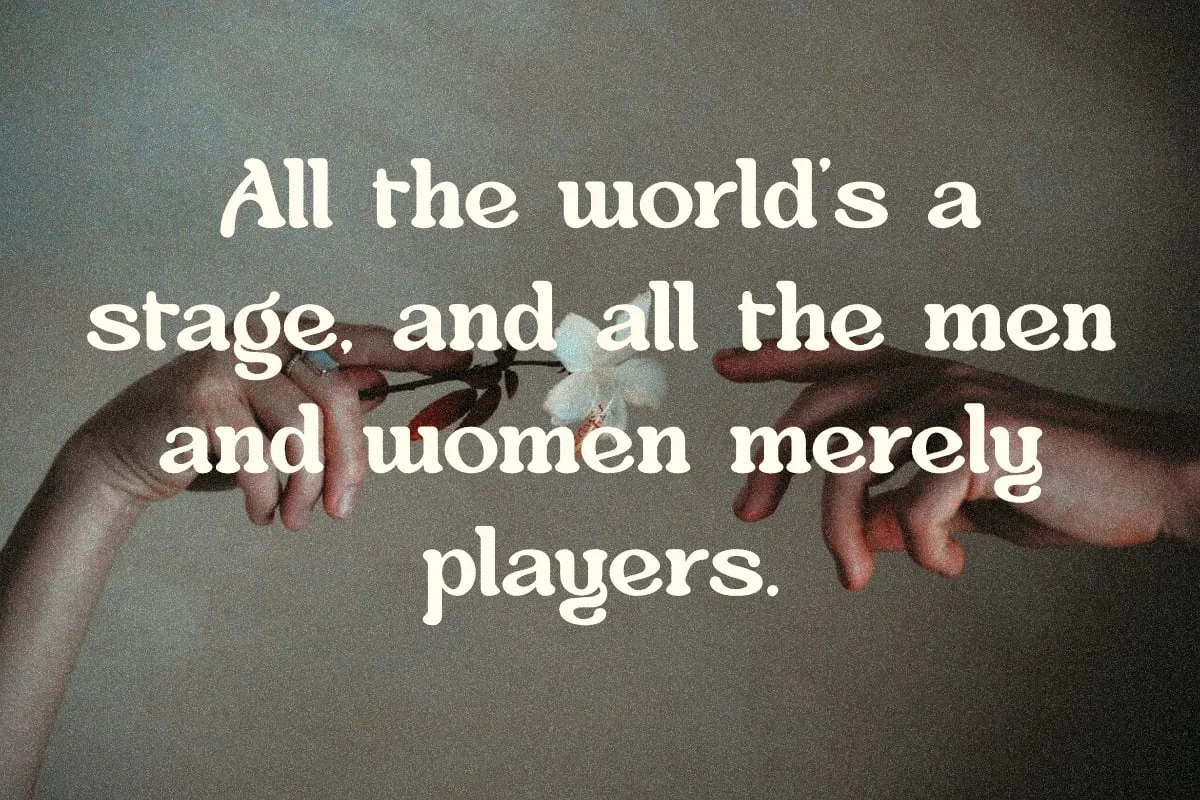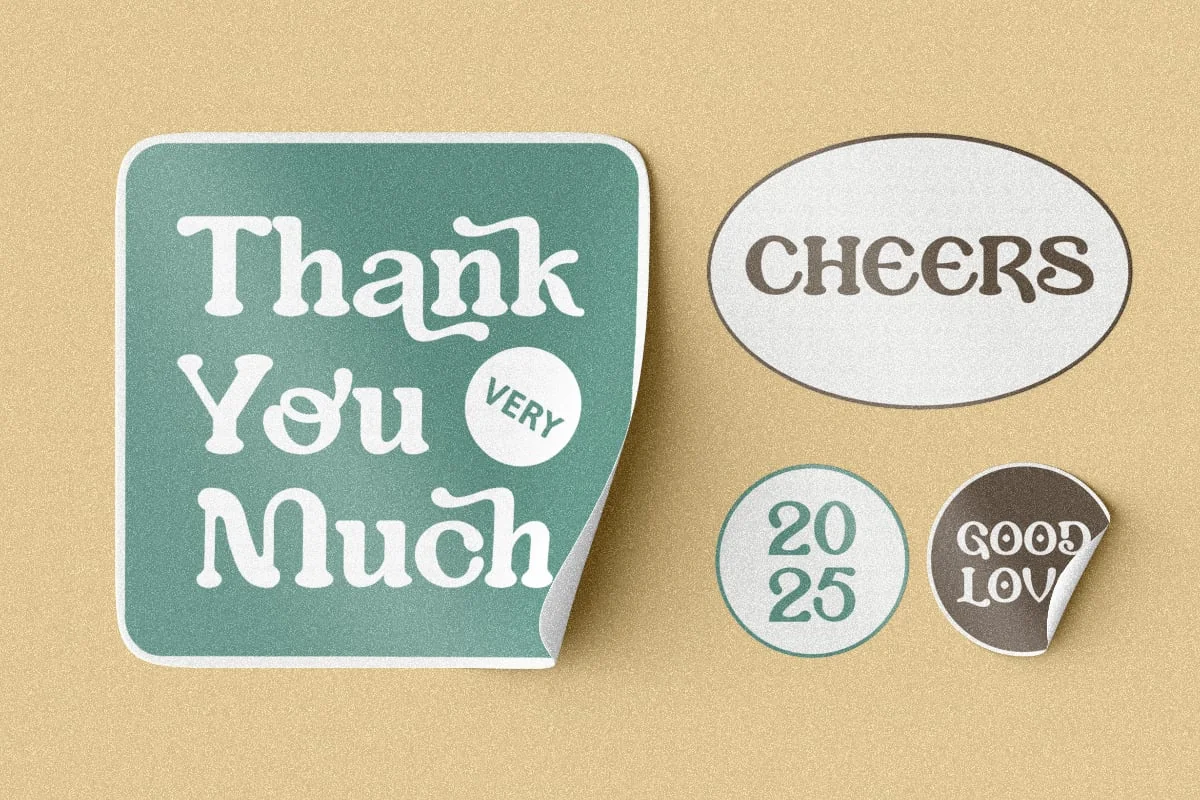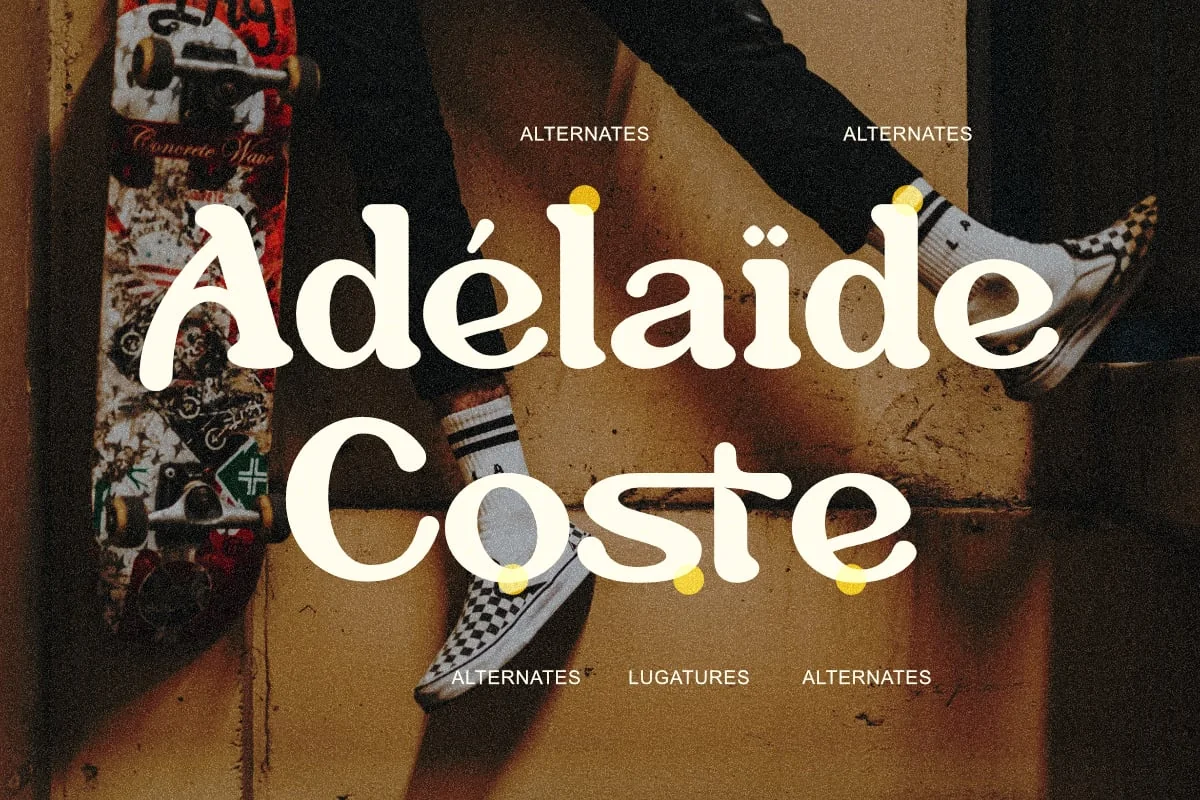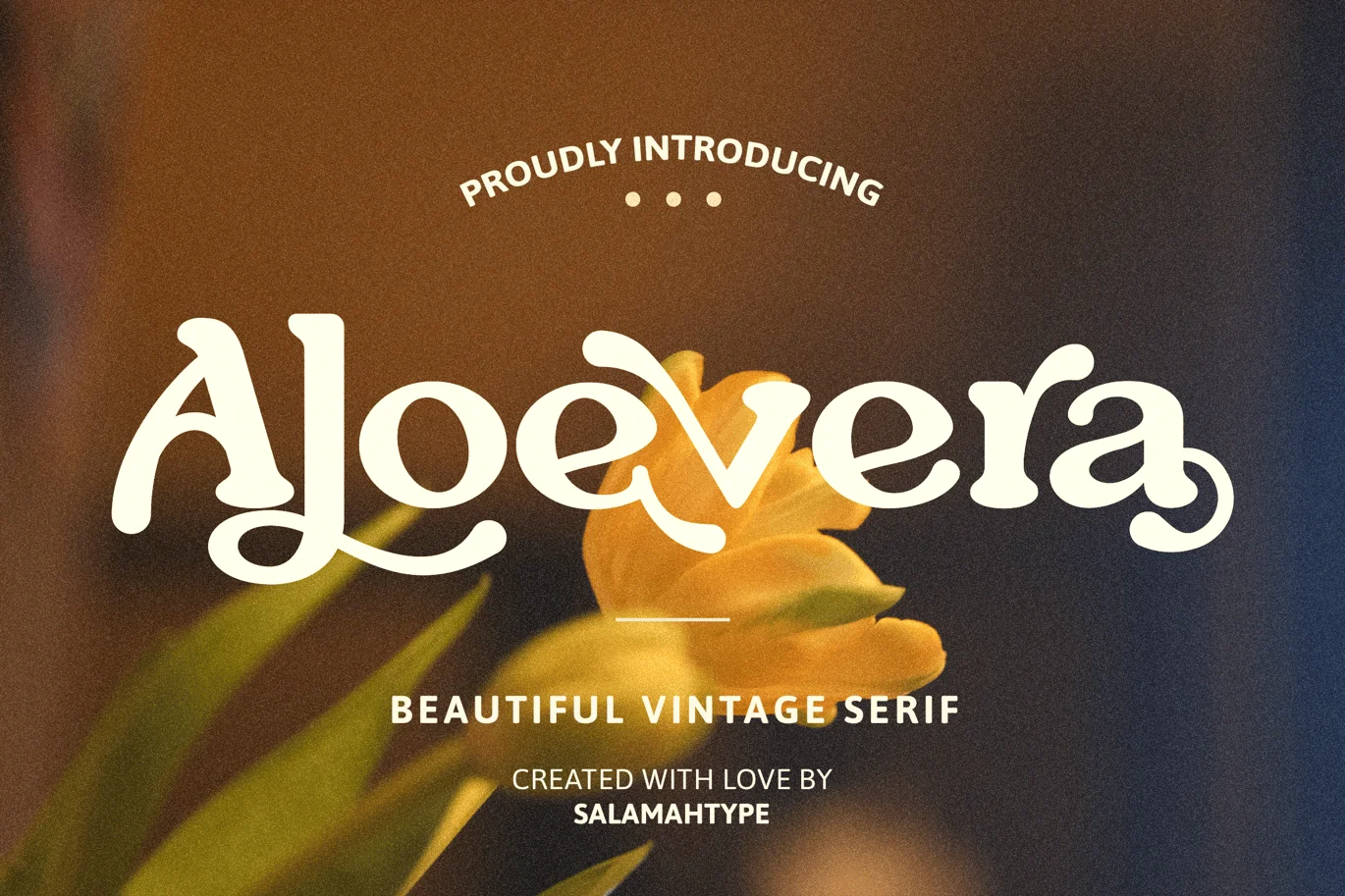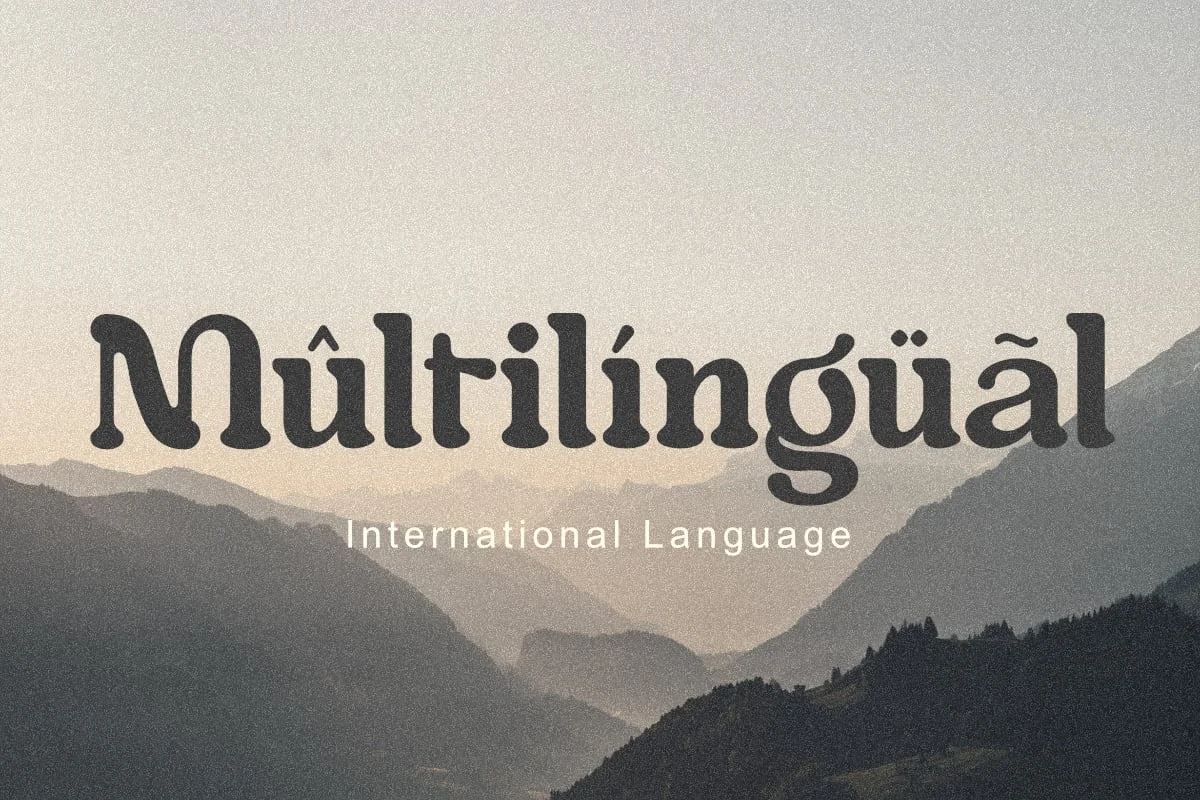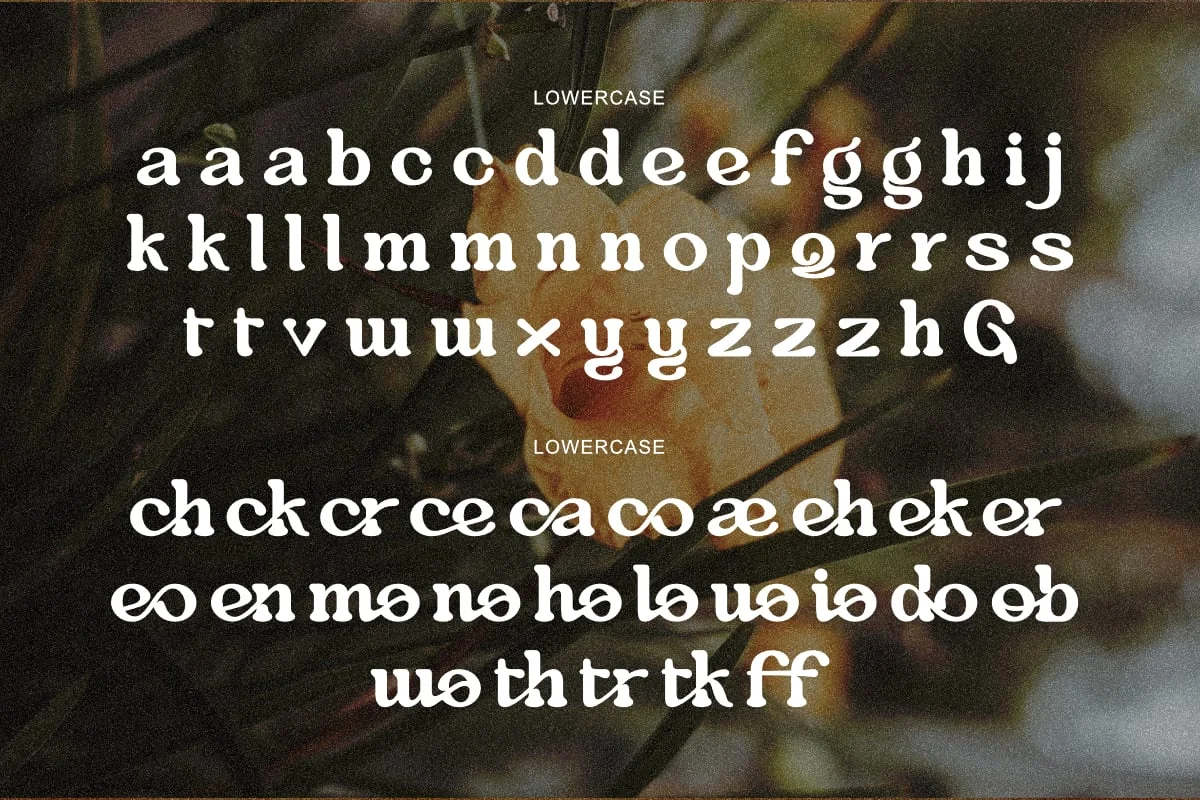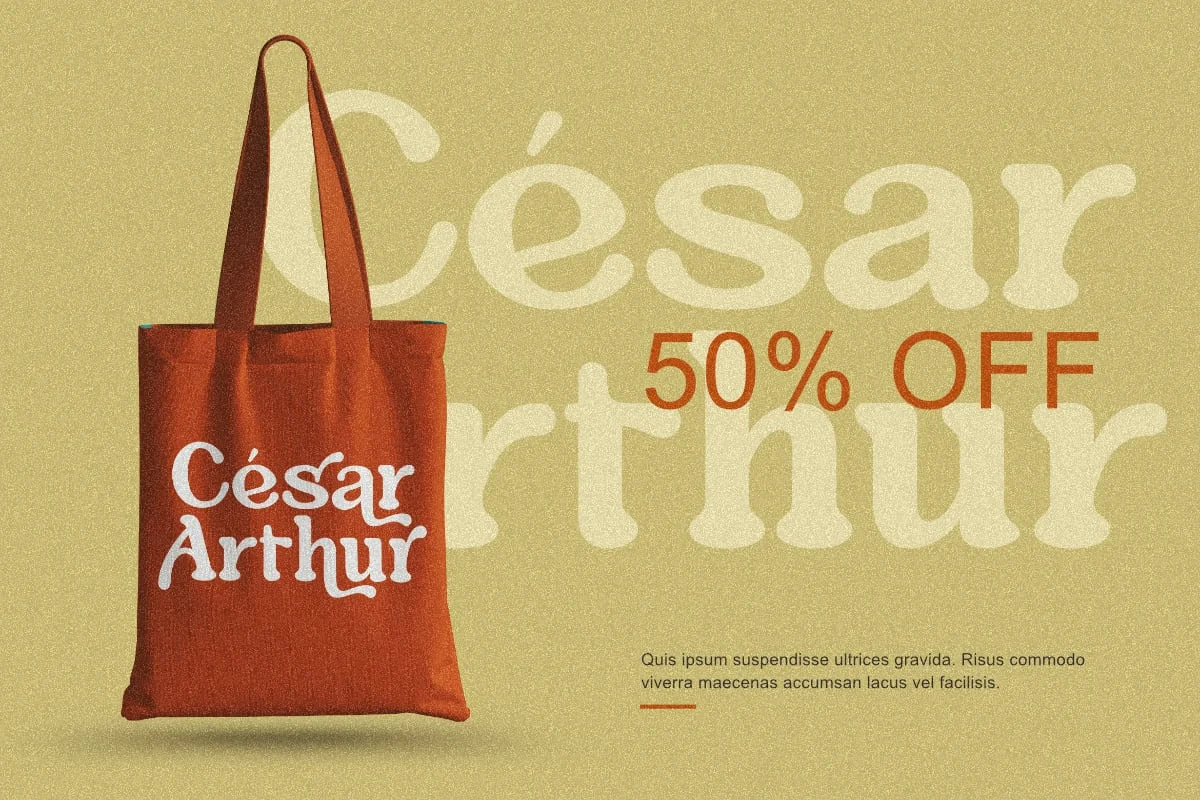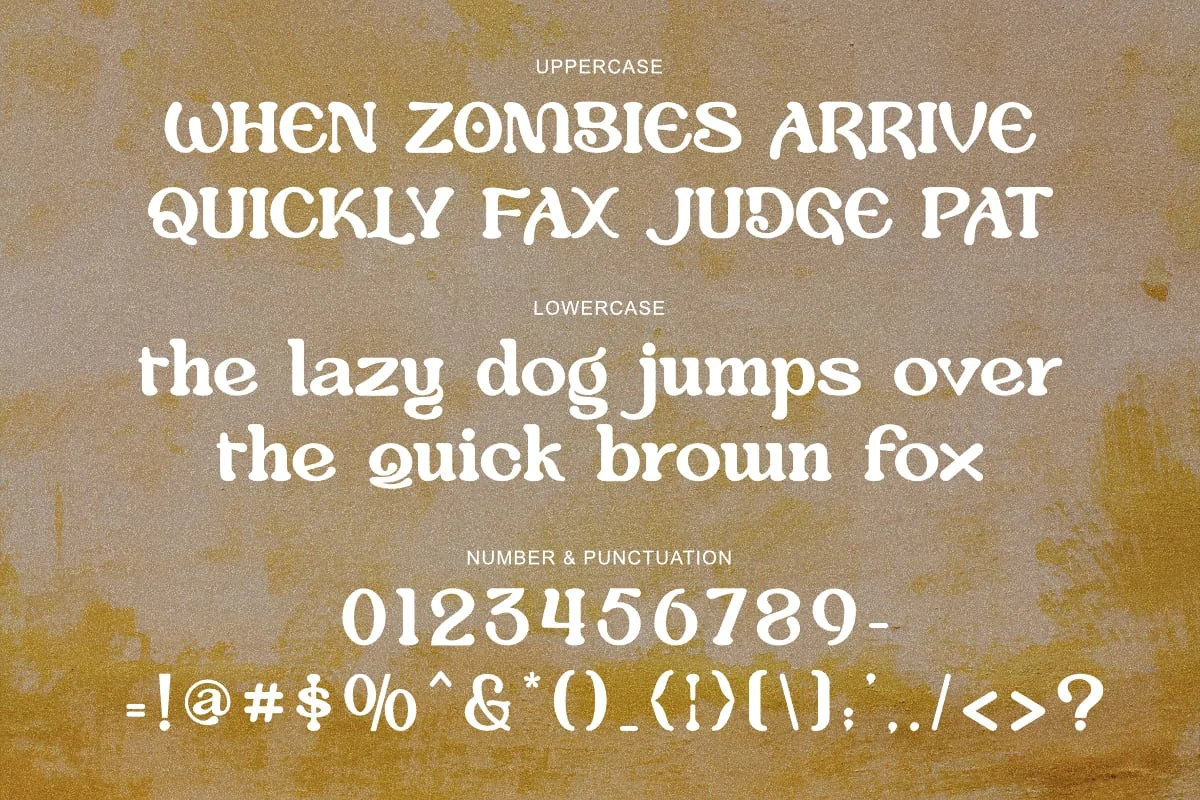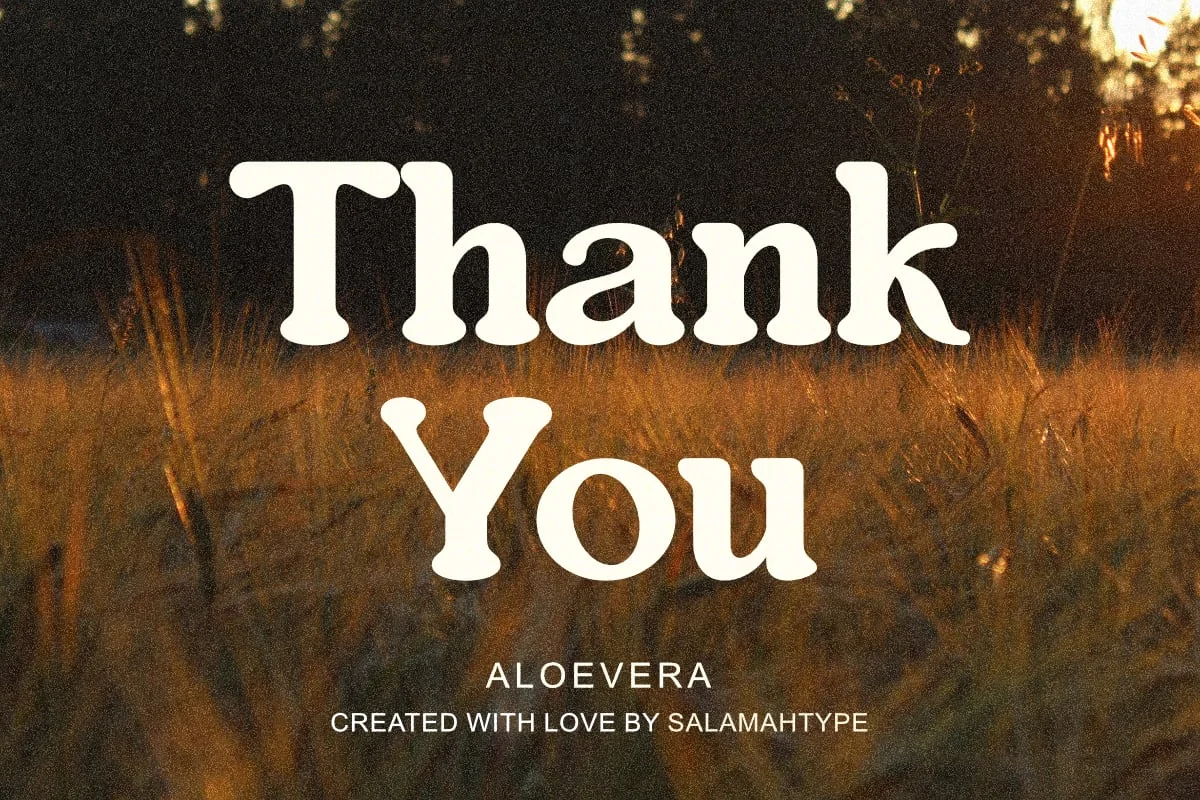
Aloevera – Vintage Font
Introducing our vintage serif called “Aloevera” – a stylish serif typeface with ligatures and alternates. This font is perfect for your branding projects, websites, logos, wedding invitations, social media, and more.
- Uppercase & lowercase
- Punctuation & symbol